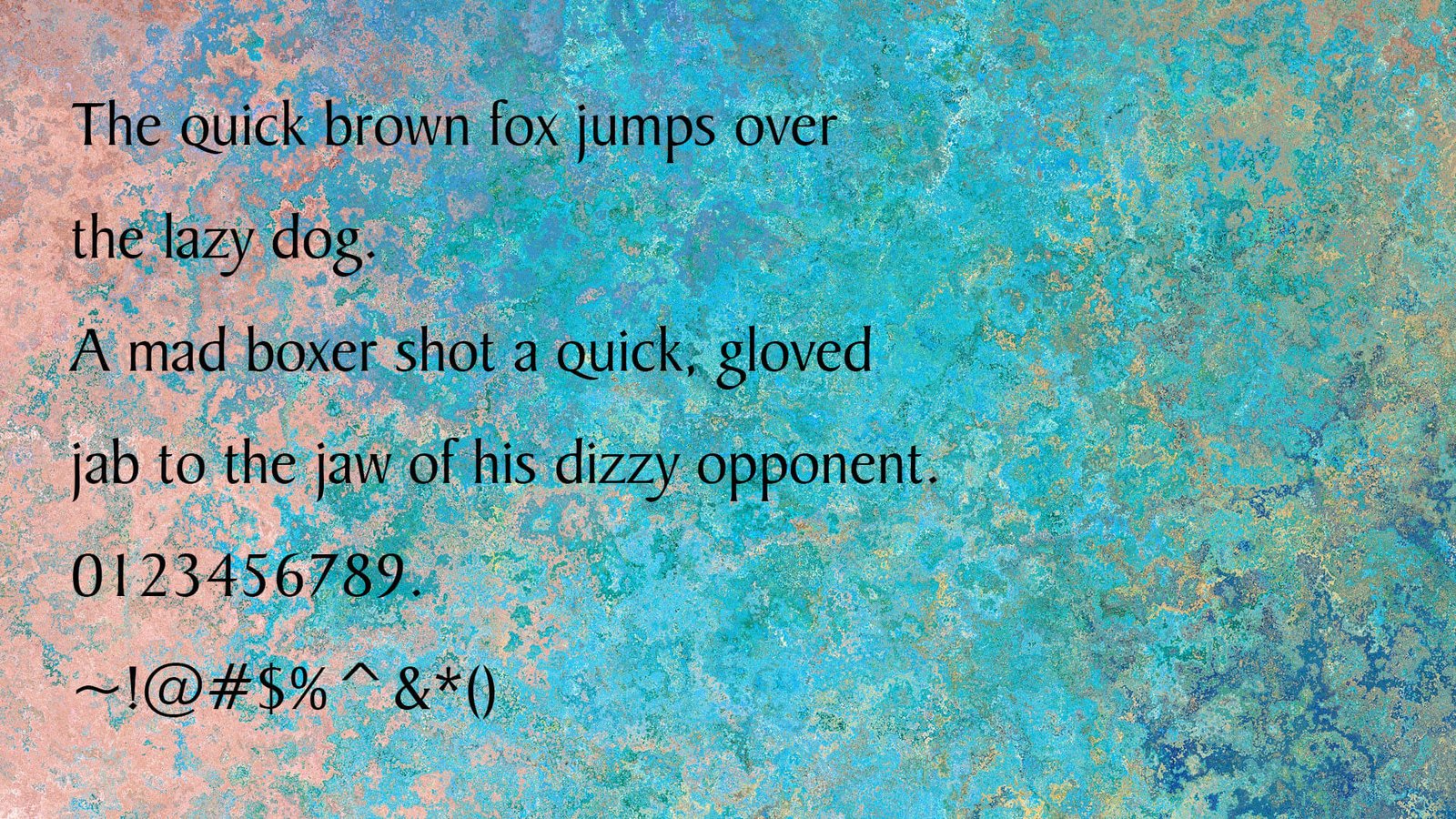
Evgeny Sadko designed the beautiful Baker Signet font. Sadko worked for the Paratype foundry. So this font is released by Paratype. If you are a professional graphic designer and looking for the best font for logos and poster designing. Then this is one of the best fonts to use in that type of work.
It has a simple texture design. It contains almost 260+ glyphs including special symbols, stylistic alternates, uppercase, lowercase, etc.
This special font is also best for printing purposes as well. It is similar to Corbel Font and can also be used for pairing purposes.